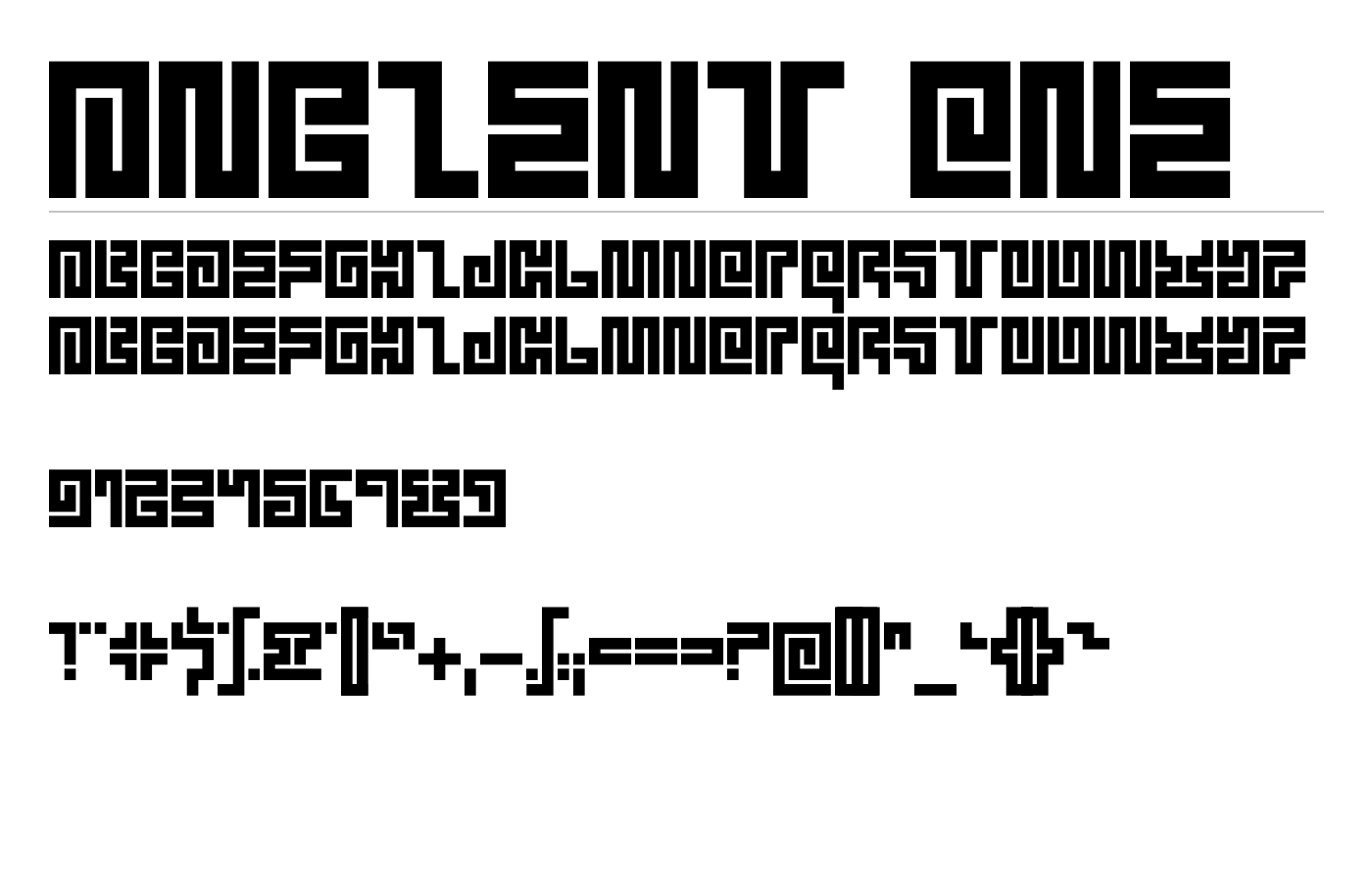
Ancient One is a bold, geometric display font with a striking, maze-like design that evokes an ancient, mysterious vibe. Its condensed letterforms with consistent stroke weight create a highly stylized, blocky aesthetic perfect for headlines, logos, or branding projects seeking a dramatic and unique look. This font works best where eye-catching, ornamental typography is needed to convey a sense of history or enigmatic style.
Ancient One Font